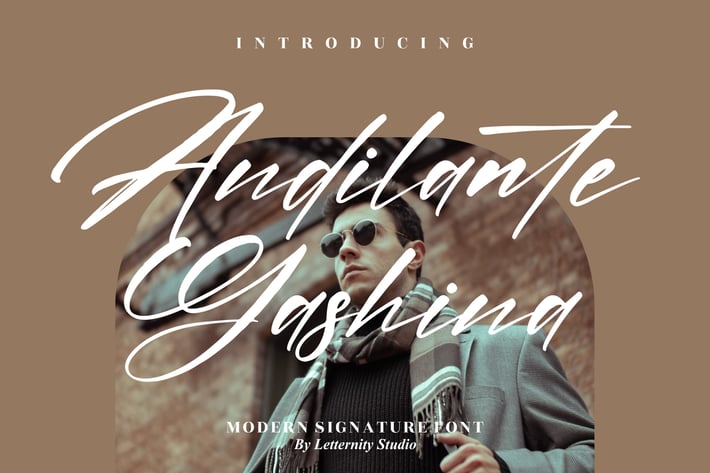
Andilante Gashina Modern Signature Font
Andilante Gashina is a sleek and stylish modern signature font crafted with an elegant handwritten touch. Its dynamic flow and confident strokes exude a sense of sophistication — perfect for projects that demand a premium and expressive look.
Modern handwritten signature style
Natural ink texture with smooth ligatures
High readability across print and digital formats
Branding and logo identities
Photography watermarks and magazines
Fashion campaigns and packaging design
Invitations, greeting cards, and product labels
* Elegant posters and lifestyle social media posts
Make your signature unforgettable — Andilante Gashina delivers timeless elegance with every stroke.